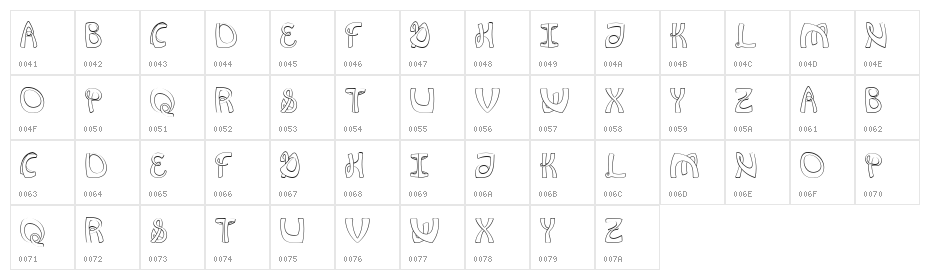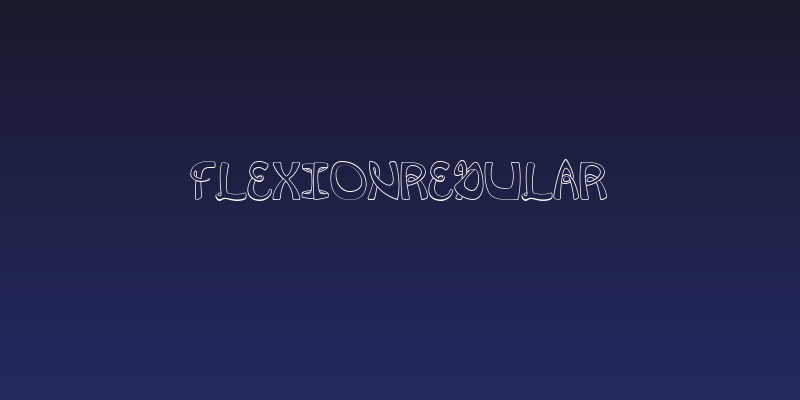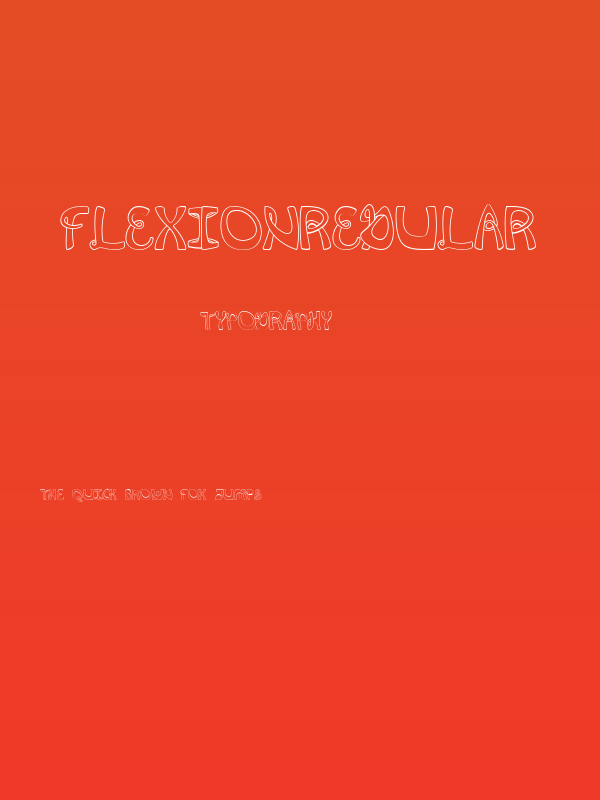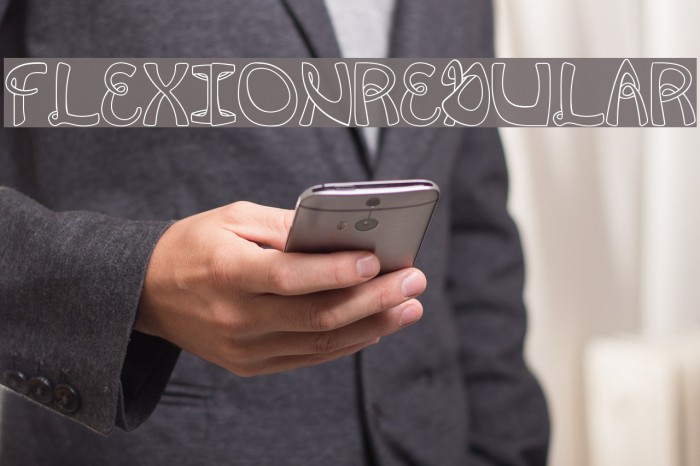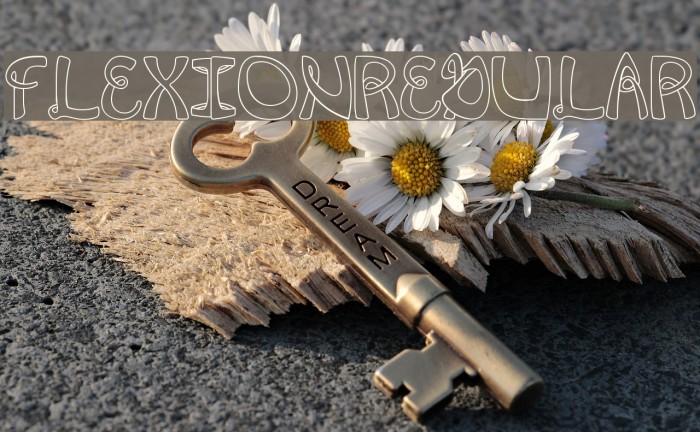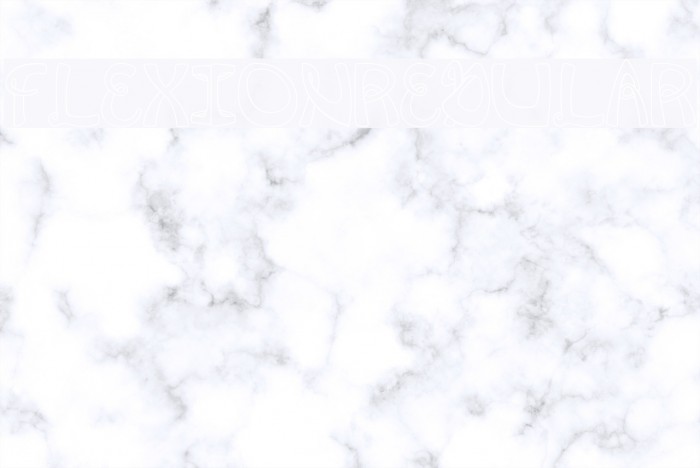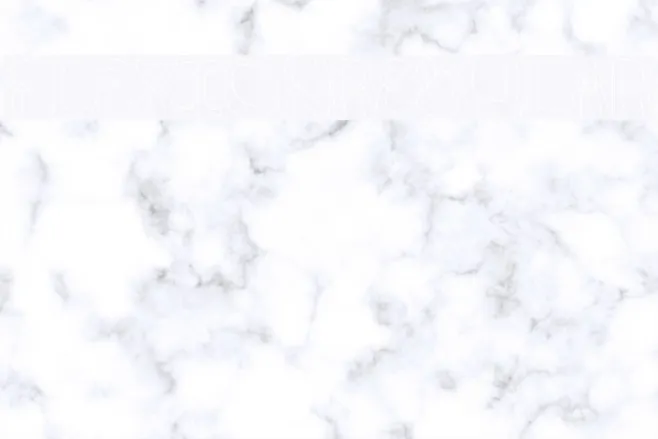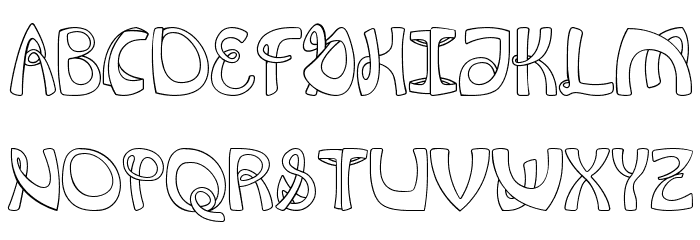
FlexionRegular Font
FlexionRegular Description
This font features a unique and playful design with a hand-drawn aesthetic. The characters are outlined with a consistent stroke width, creating a whimsical and artistic appearance. The letters have a fluid, organic shape with curves and loops that add a sense of movement and creativity. The uppercase and lowercase letters maintain a cohesive style, while the numbers and special characters integrate seamlessly into the overall design. This font's distinctive style makes it stand out, offering a fresh and dynamic look.